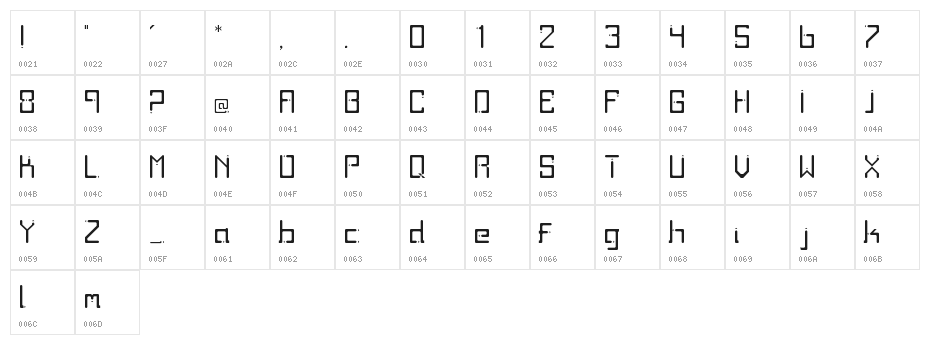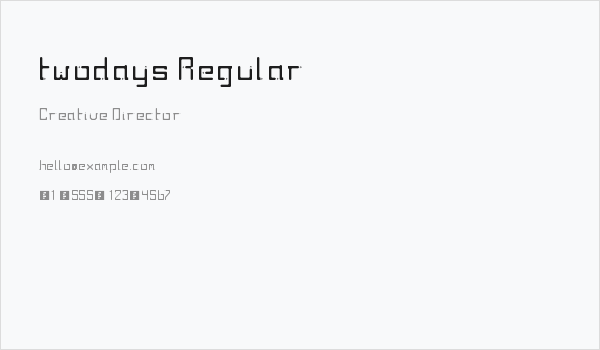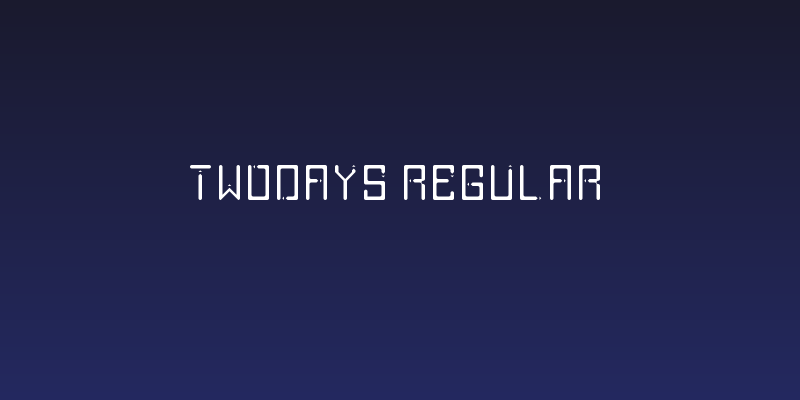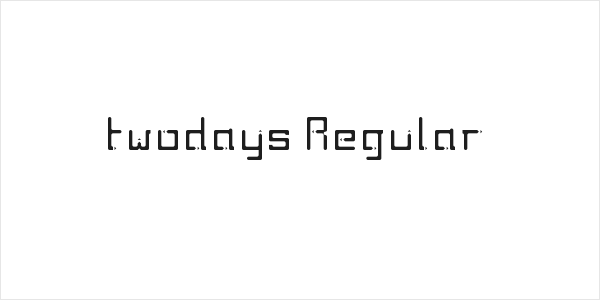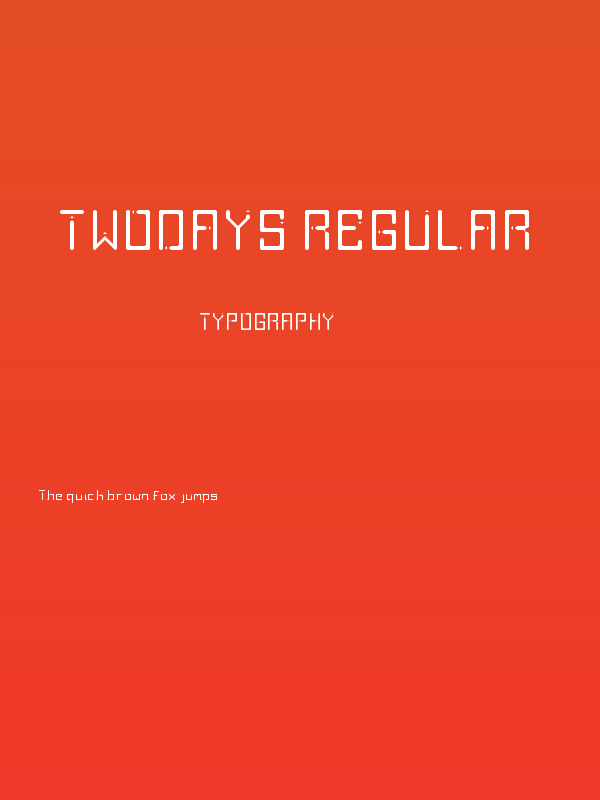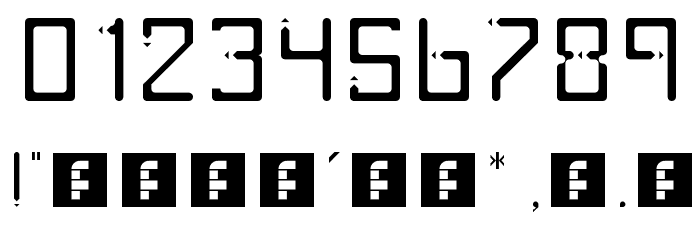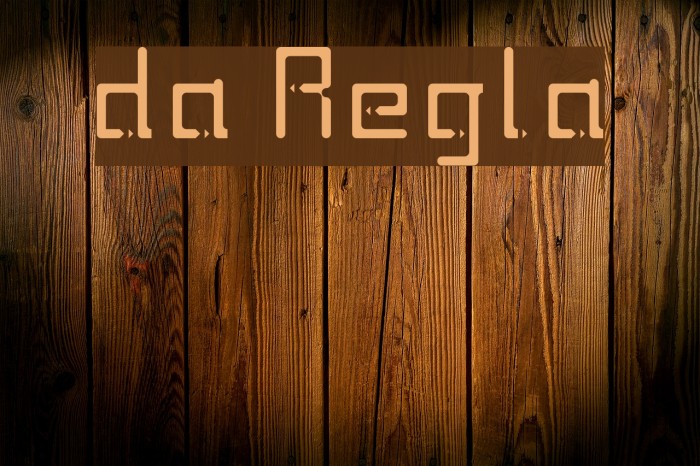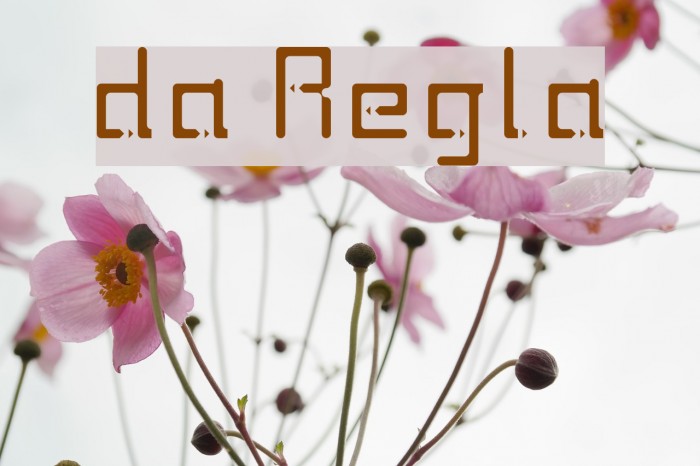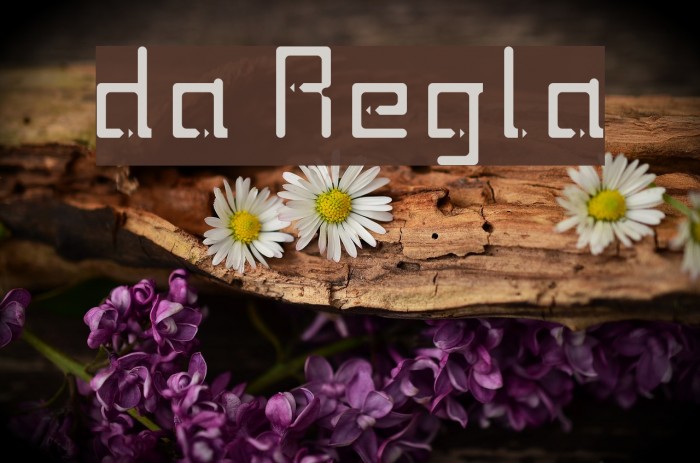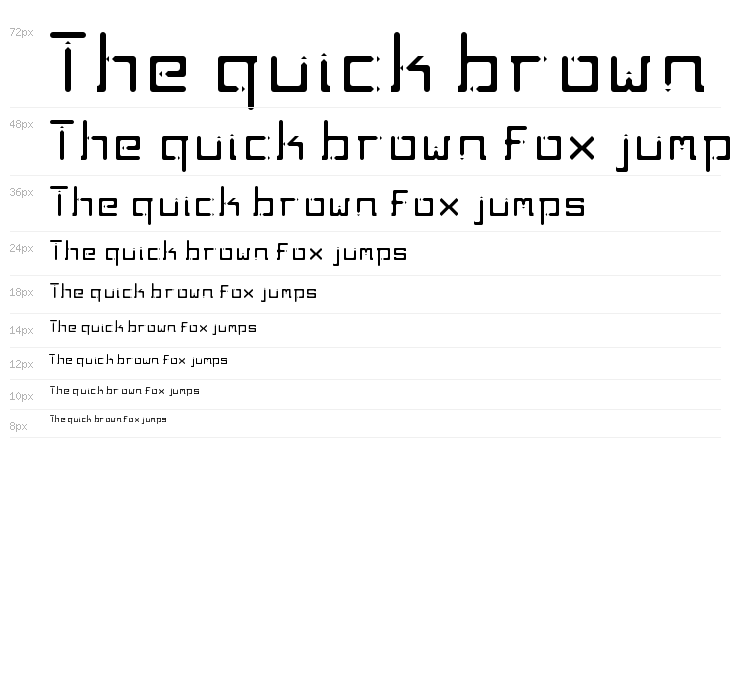
twodays Regular Font
twodays Regular Description
This font features a modern, geometric design with a unique, futuristic aesthetic. The characters are constructed with a combination of straight lines and sharp angles, giving it a distinct, tech-inspired look. The uppercase and lowercase letters maintain a consistent style, with uniform stroke widths and minimal contrast. The numerals and special characters follow the same design principles, ensuring a cohesive appearance across all glyphs. The font's structure is clean and precise, making it suitable for digital and print media where a contemporary and innovative feel is desired.
| Proposed Projects | Ideal for technology branding, digital interfaces, video game design, and futuristic-themed projects. |